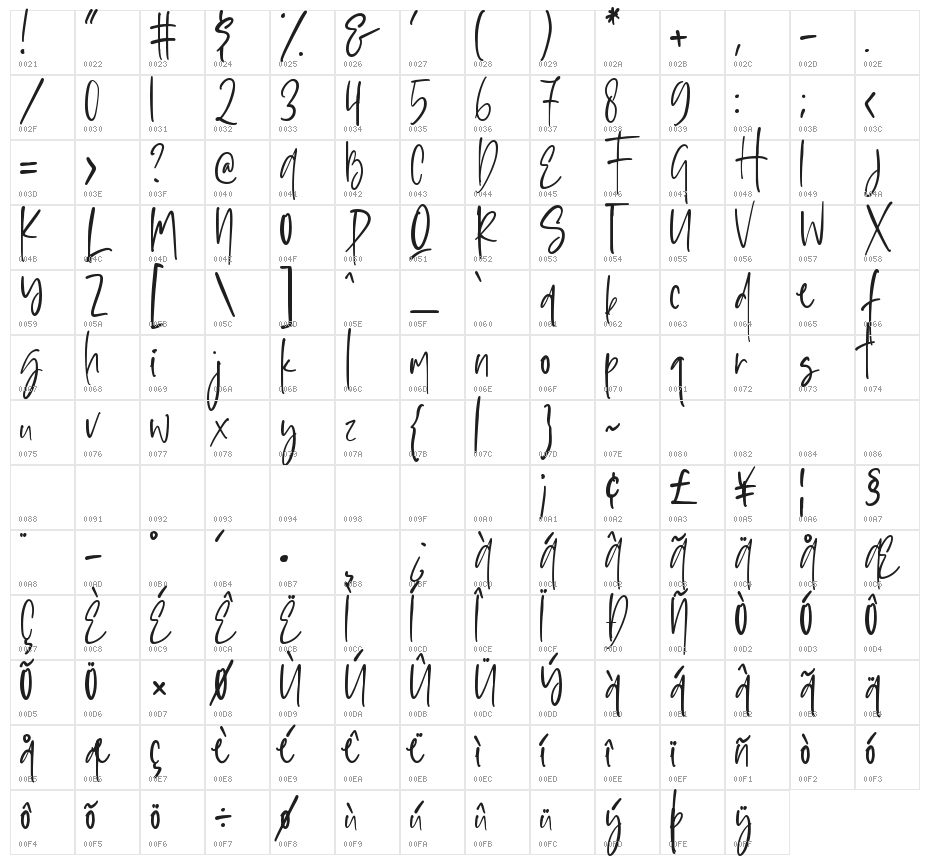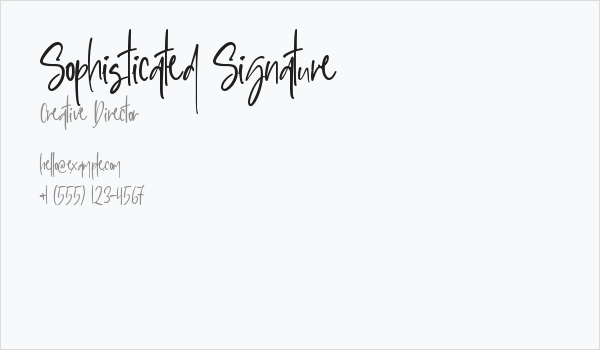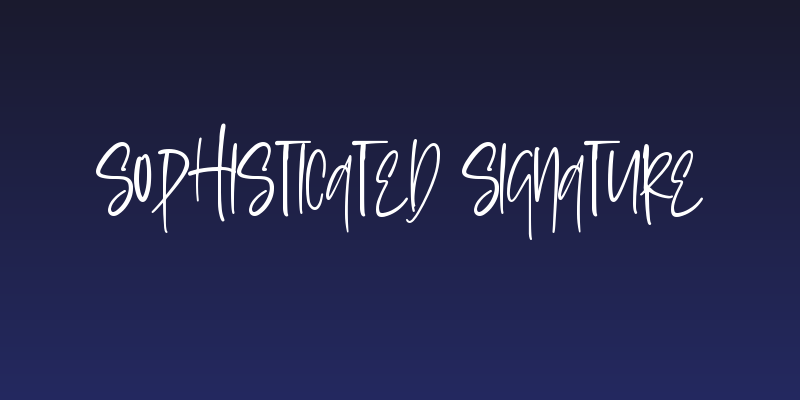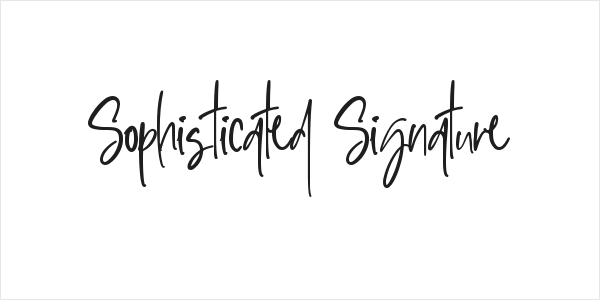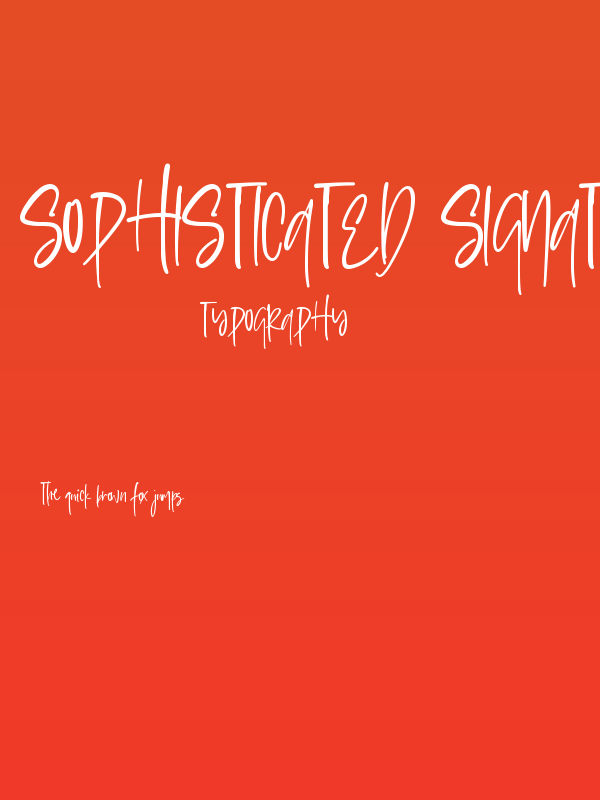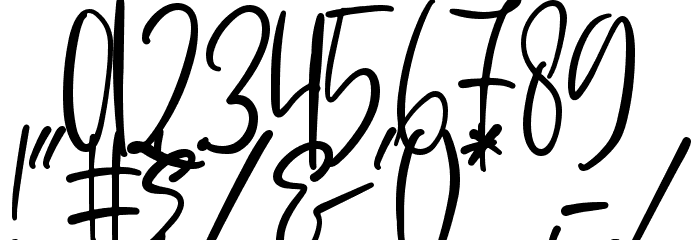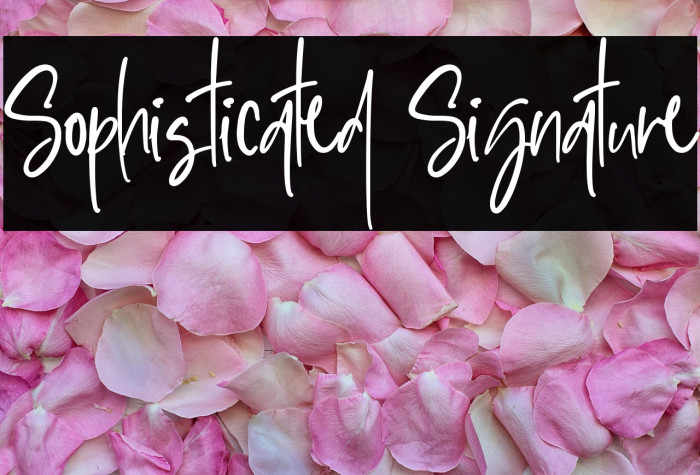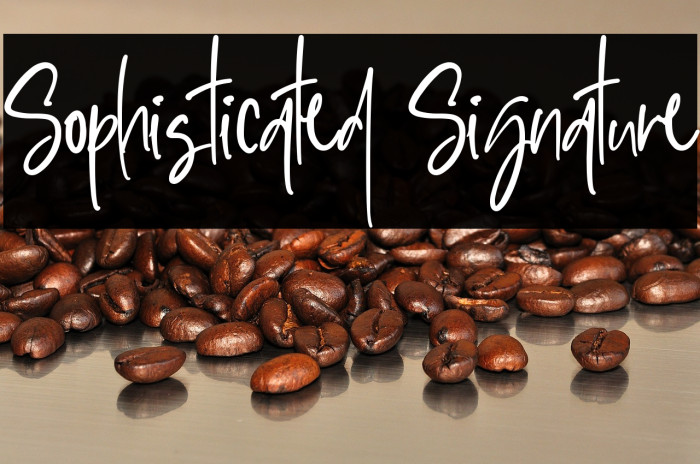
Sophisticated Signature Font
Sophisticated Signature Description
This font exudes a sophisticated and elegant handwritten style, characterized by its fluid and cursive strokes. The letters are tall and slender, with a consistent slant that gives the text a dynamic and flowing appearance. The uppercase letters are slightly larger and more pronounced, while the lowercase letters maintain a graceful continuity. The numbers and special characters are crafted with the same attention to detail, ensuring a cohesive look across all elements. The overall impression is one of refinement and style, making it suitable for projects that require a personal and artistic touch.
| Proposed Projects | Ideal for wedding invitations, personal branding, elegant stationery, and artistic projects. |